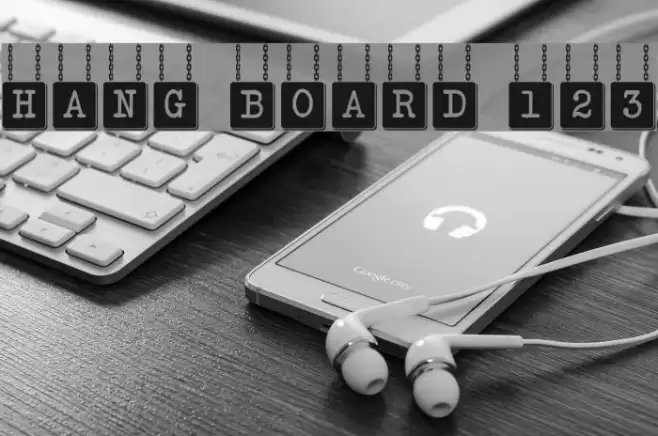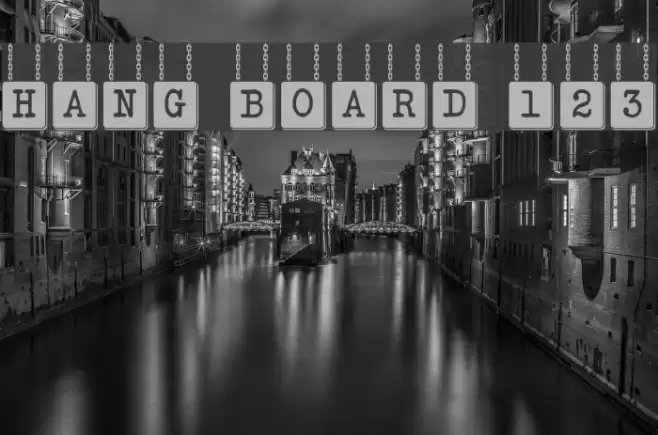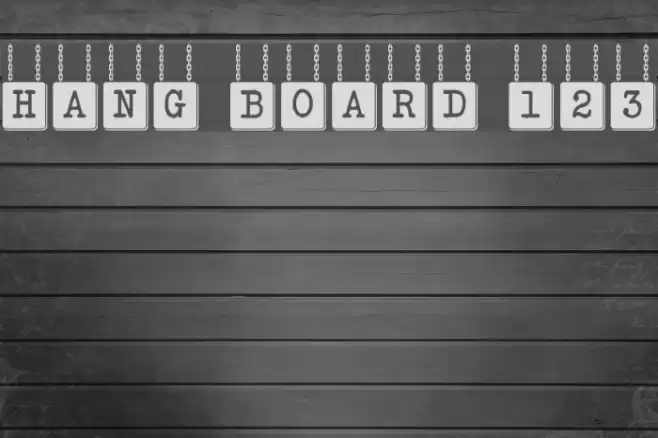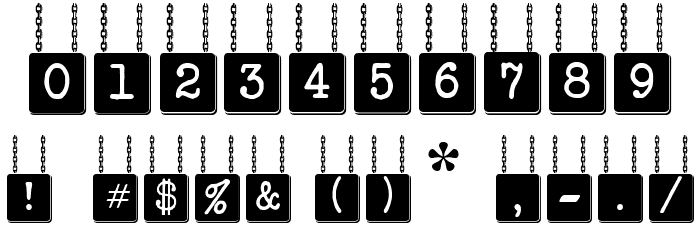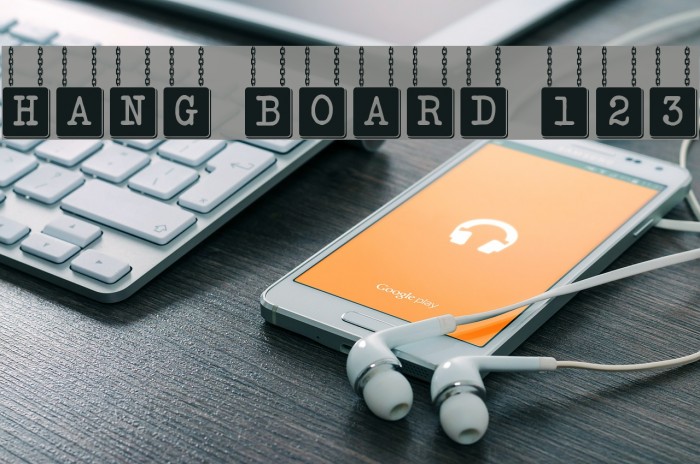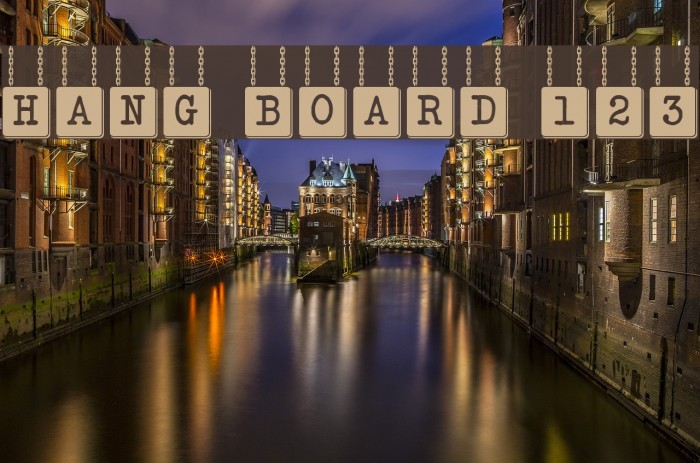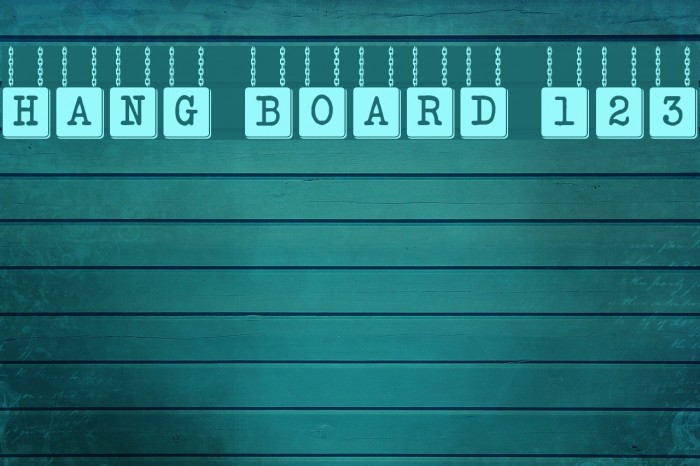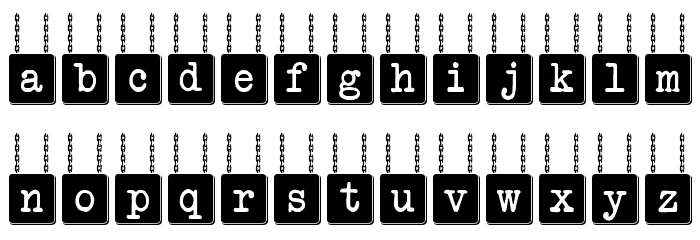
HANG BOARD 123 Font
HANG BOARD 123 Description
This font features a unique design where each character is enclosed within a square block that appears to be hanging from a chain. The characters themselves are bold and clear, with a slight serif style that adds a touch of elegance. The uppercase and lowercase letters are distinct, with the lowercase maintaining a consistent style that complements the uppercase. Numbers and special characters are also included, each fitting perfectly within their respective blocks. The overall appearance is both playful and structured, making it suitable for creative and decorative uses.
A bold, serif-style font with characters enclosed in hanging blocks from Uncategorized fonts.
- Proposed Projects: Ideal for creative projects such as posters, signage, and themed event invitations where a playful yet structured look is desired.